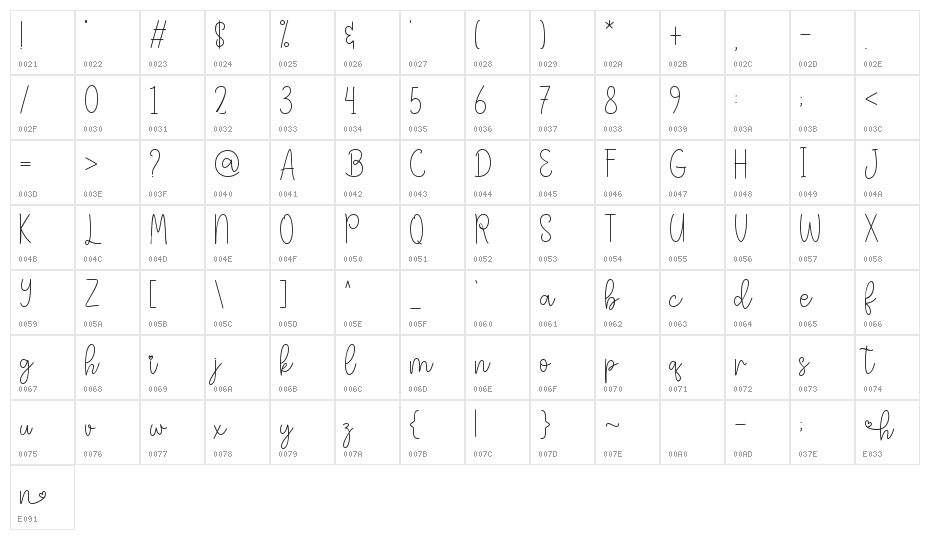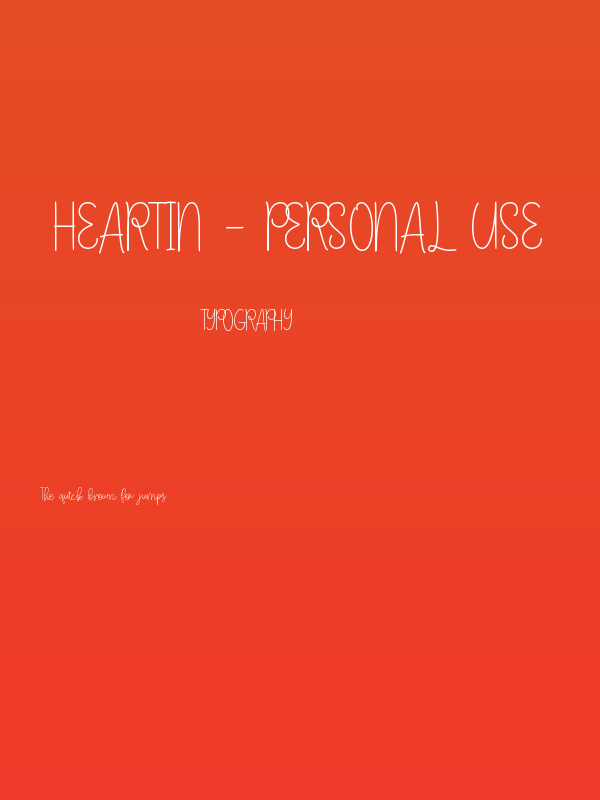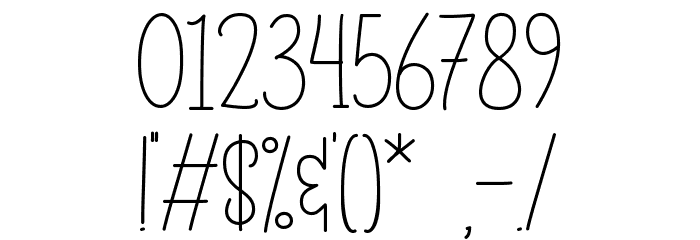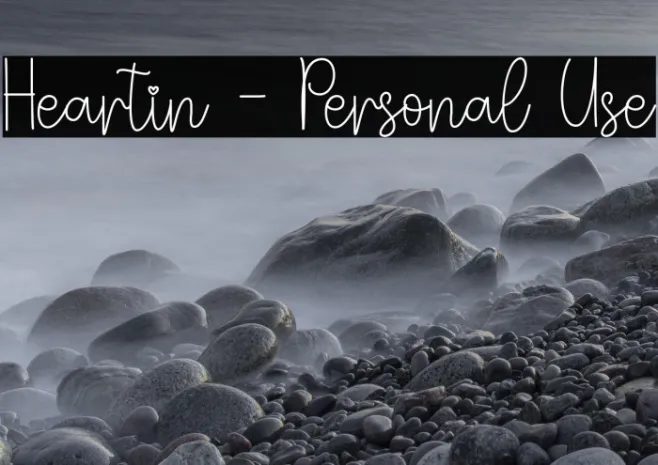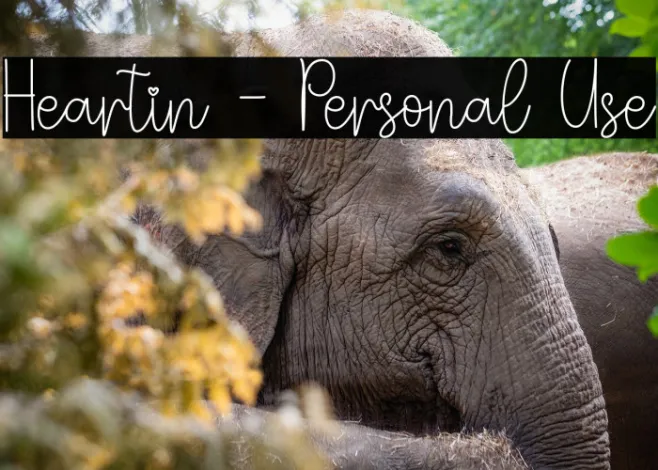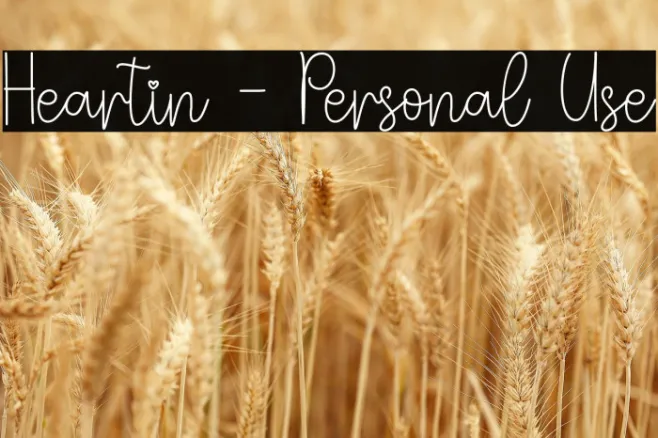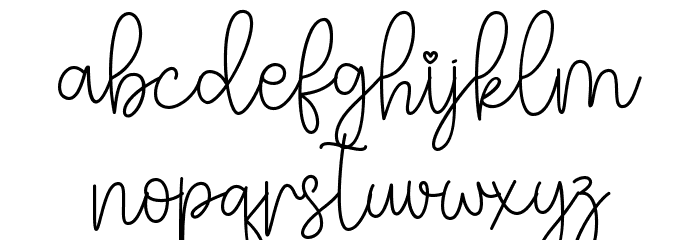
Heartin - Personal Use Font
Heartin - Personal Use Description
This font features a whimsical and playful handwritten style, characterized by its tall, narrow letters and unique heart-shaped embellishments on certain characters. The uppercase letters are elegantly elongated, giving a sense of height and grace, while the lowercase letters maintain a consistent flow with charming loops and curves. The numbers are clean and straightforward, complementing the overall style. Special characters are creatively integrated, maintaining the font's playful aesthetic. The font's thin strokes and consistent line weight contribute to its light and airy appearance, making it ideal for projects that require a personal and friendly touch.
| Width | Condensed |
| Overall Style | Playful |
| Use Case | Logos, Invitations, Personal Branding |
| Proposed Projects | Ideal for greeting cards, wedding invitations, personal branding, and playful logos. |